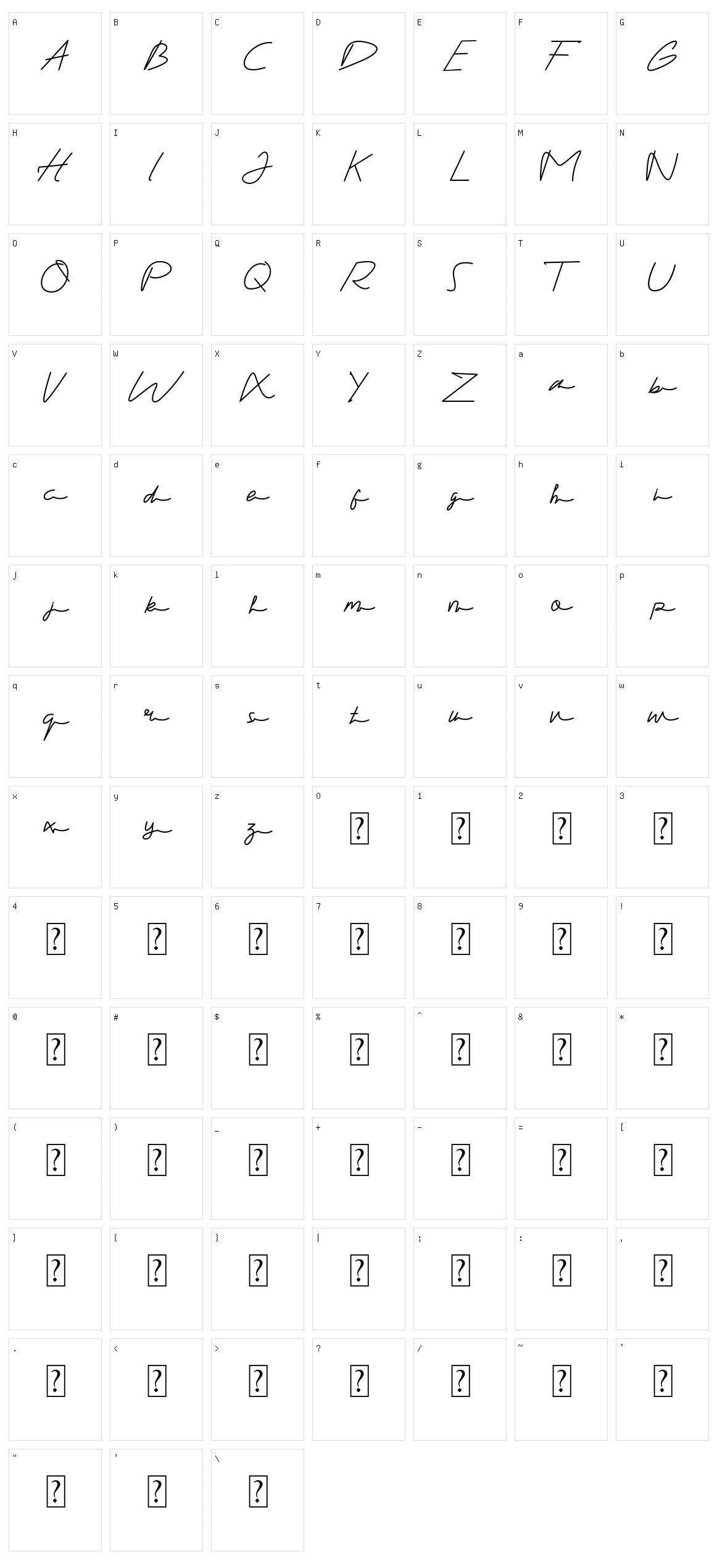
The free font Gandhewa Signature is carefully designed by Nirmala Graphics, showcasing a thoughtful balance of creativity and usability and falls under the Script font style. When you download the ZIP file, it contains only 13.58 KB of font files, making it lightweight and quick to download. Please review the license details below to understand permitted usage and distribution rights. If license information is not available, we recommend using this font for personal projects only or contacting the author directly for commercial usage permissions.